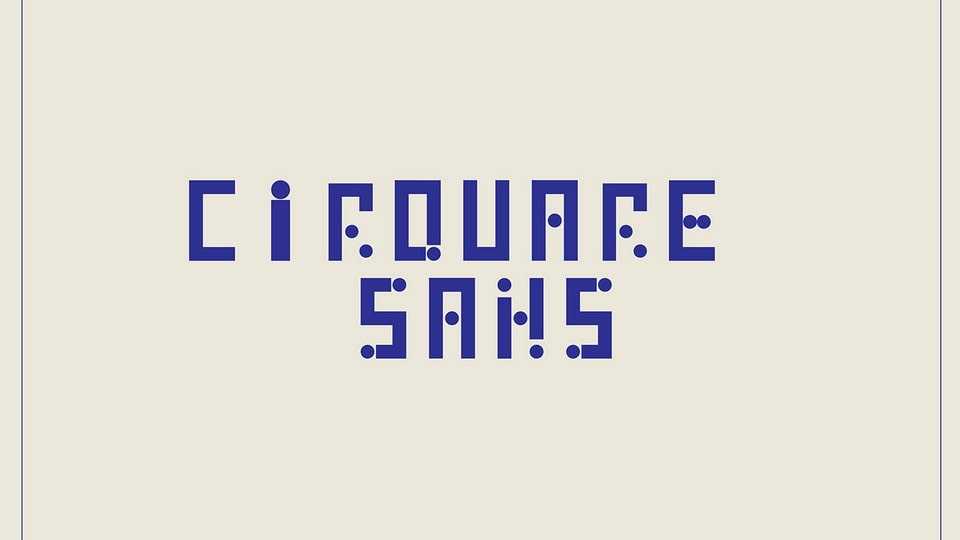
Download Cirquare Sans font, a minimalist and innovative typeface that pushes the boundaries of traditional typefaces by seamlessly merging circular and rectangular elements with a timeless sans serif design.
Designer: D Studios